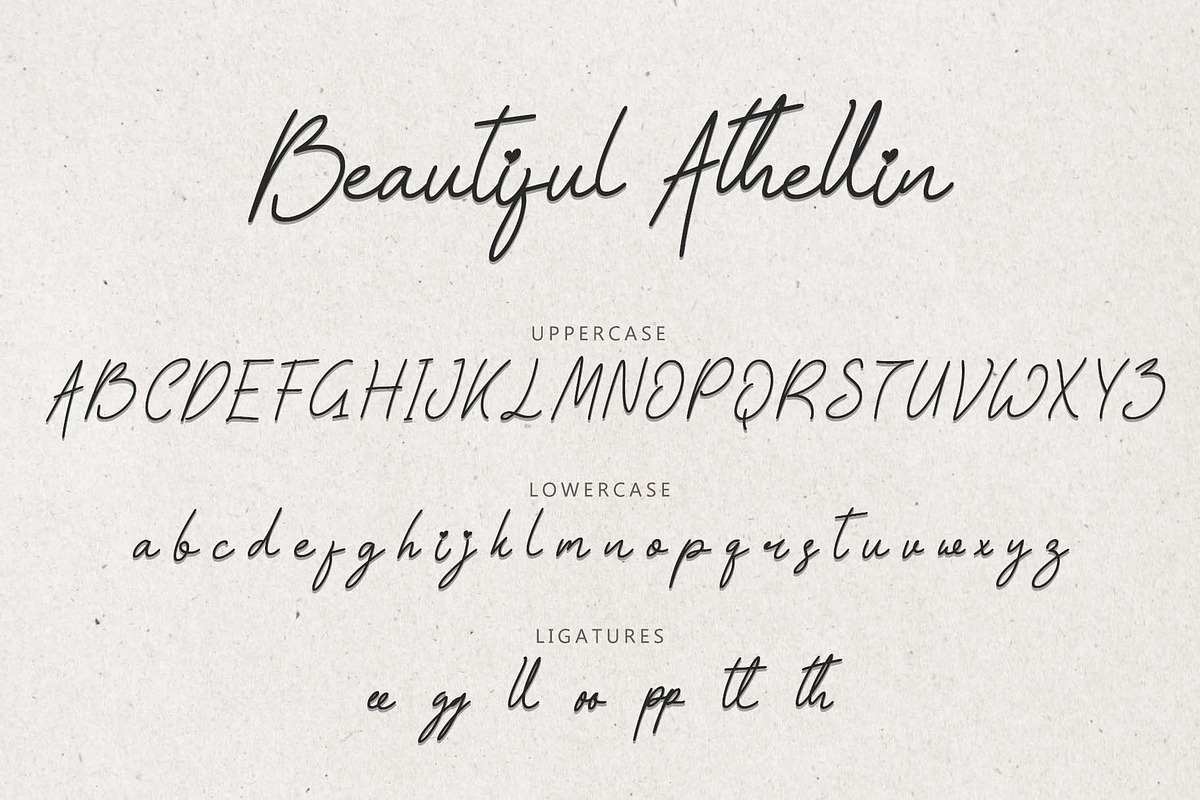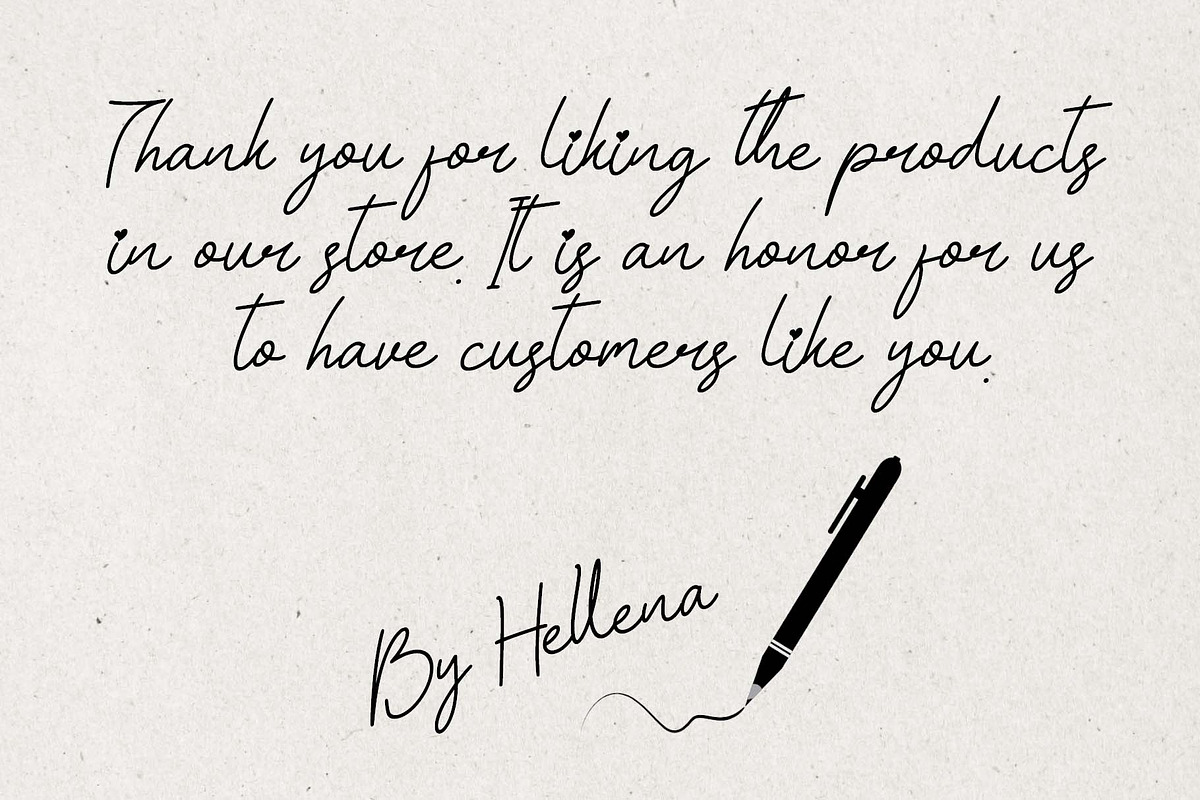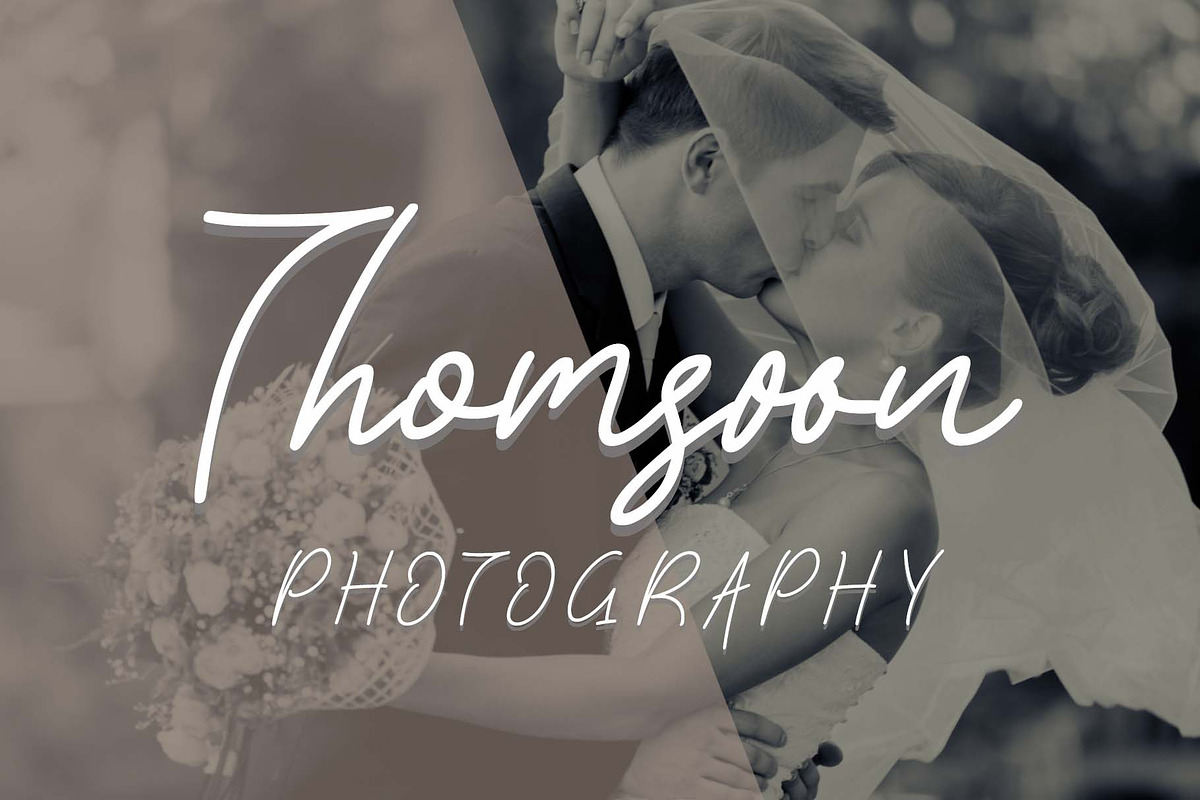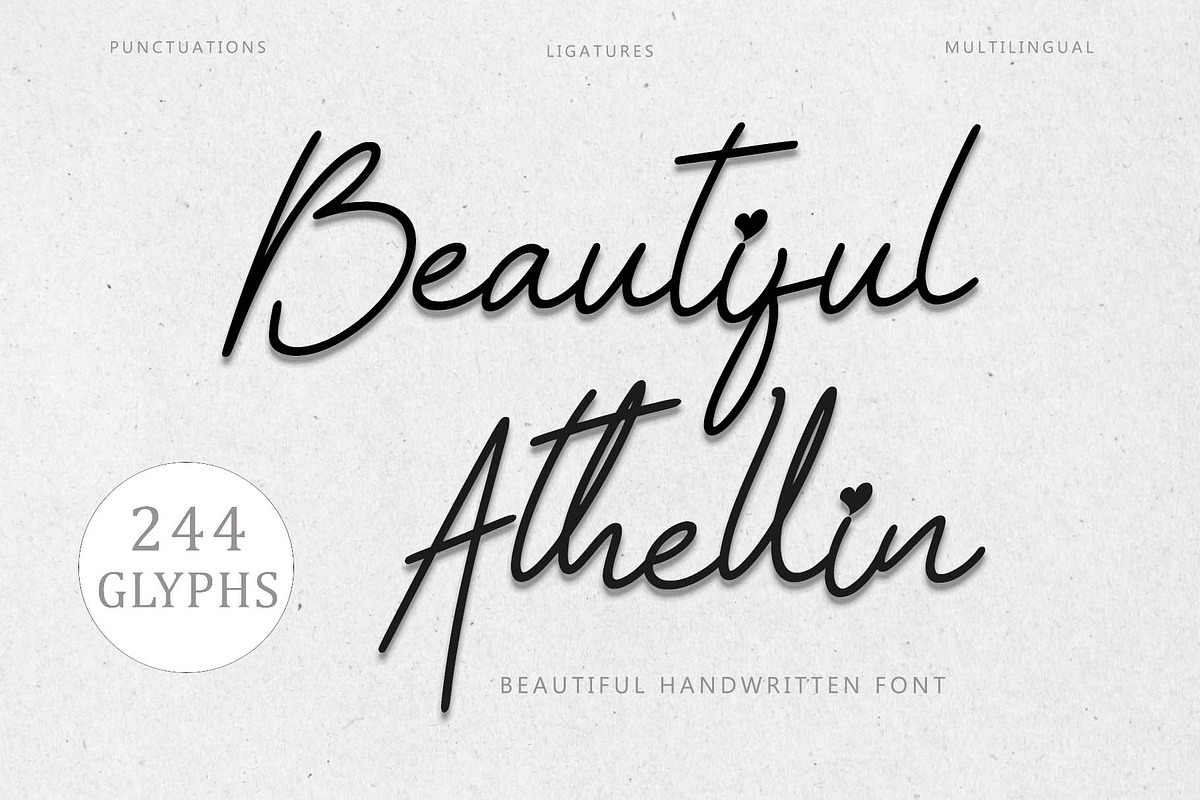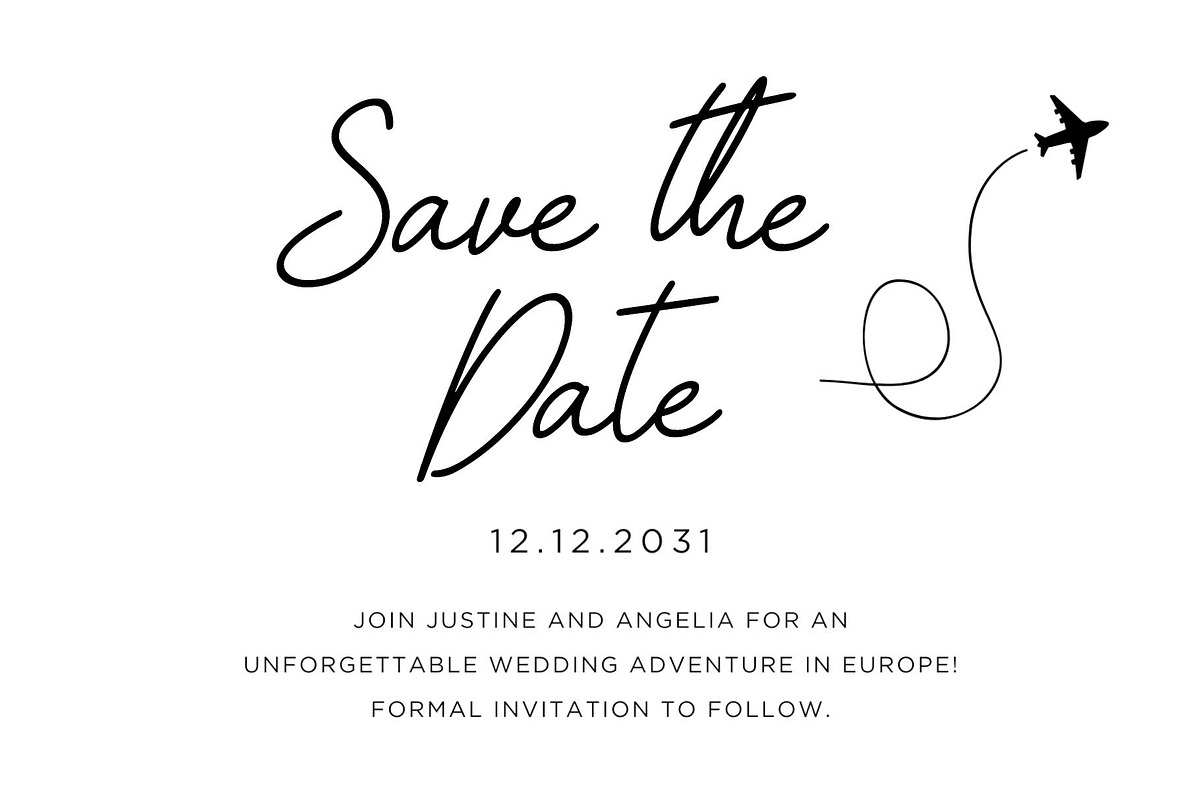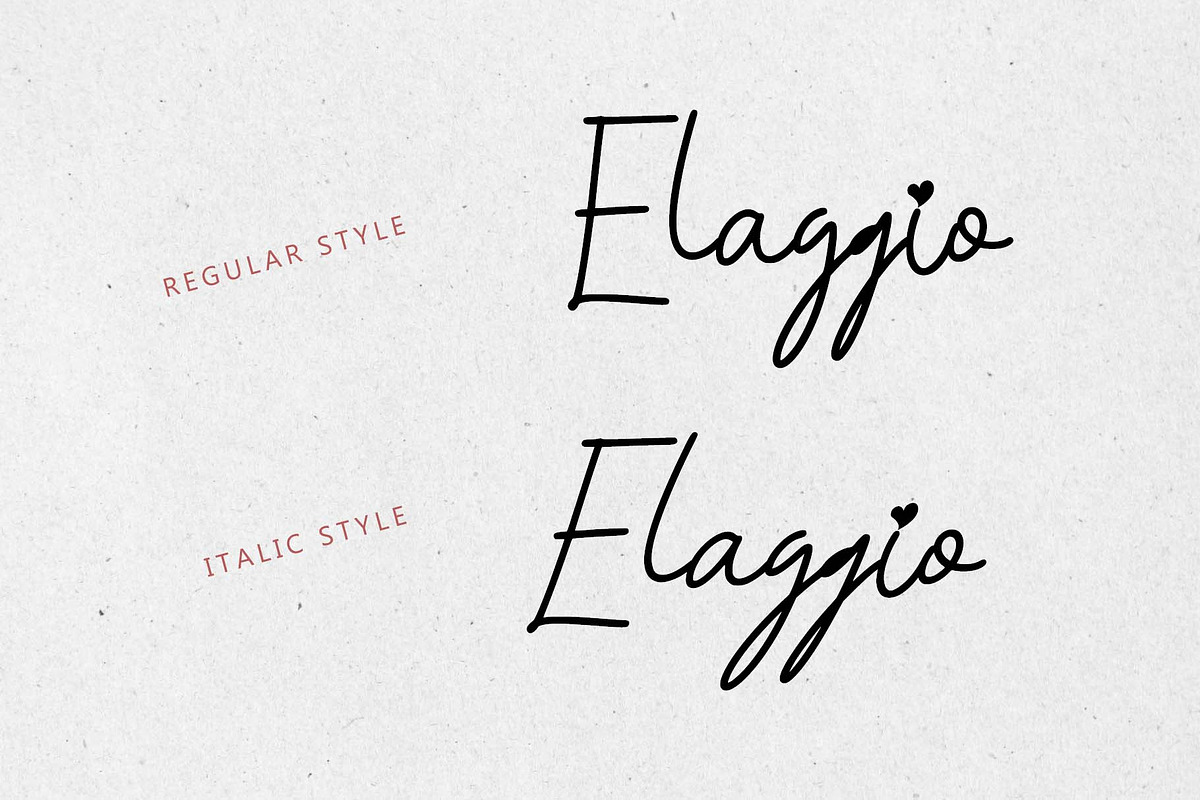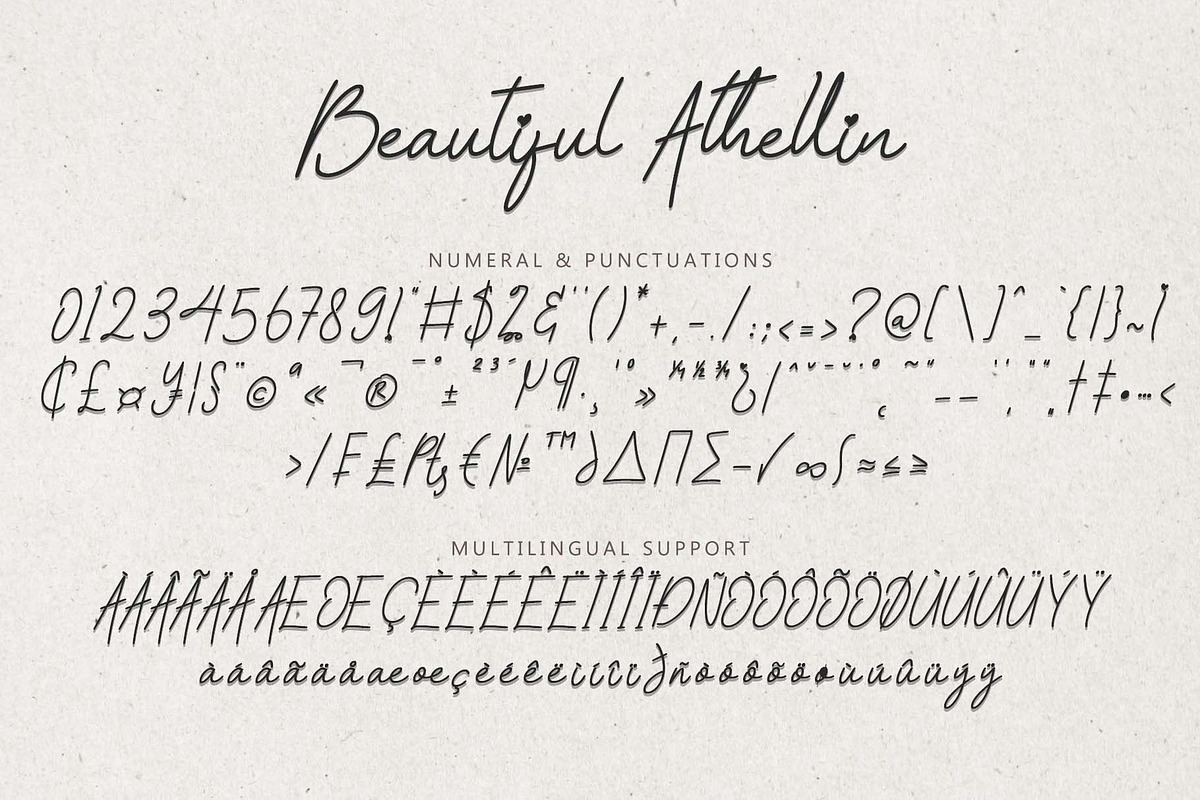
Beautiful Athellin
"Beautiful Athellin" is a beautiful and charming handwritten monoline font. It comes with lowercase, uppercase, ligatures, numbers, punctuation, and multilingual support. Perfect for wedding, photography, Christmas, Valentine's, invitations, certificates, birthdays, etc.